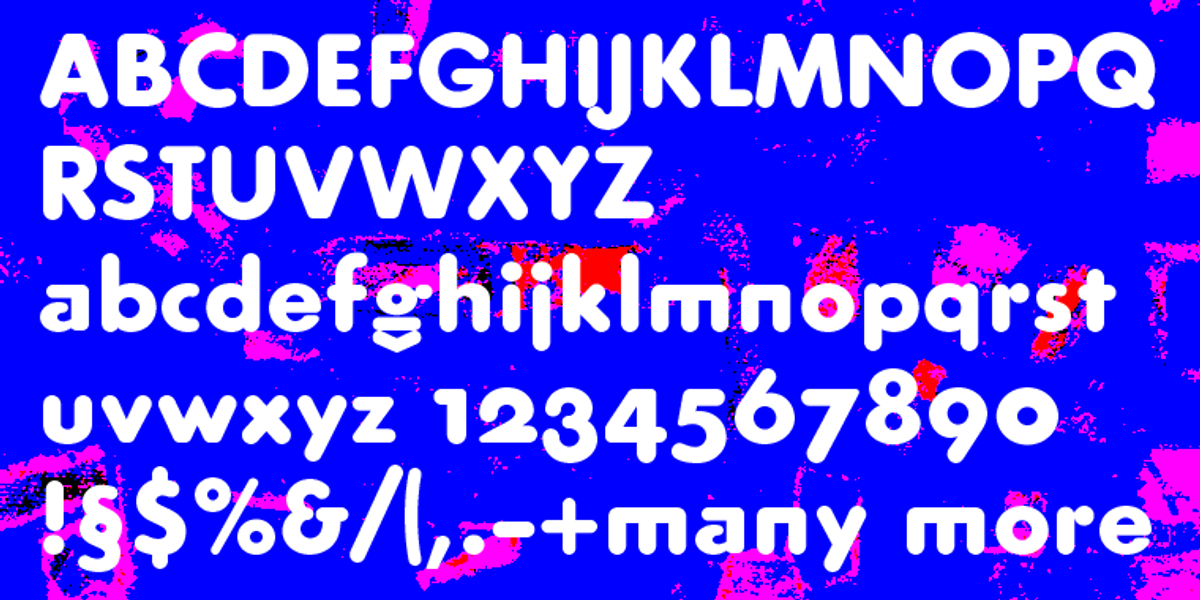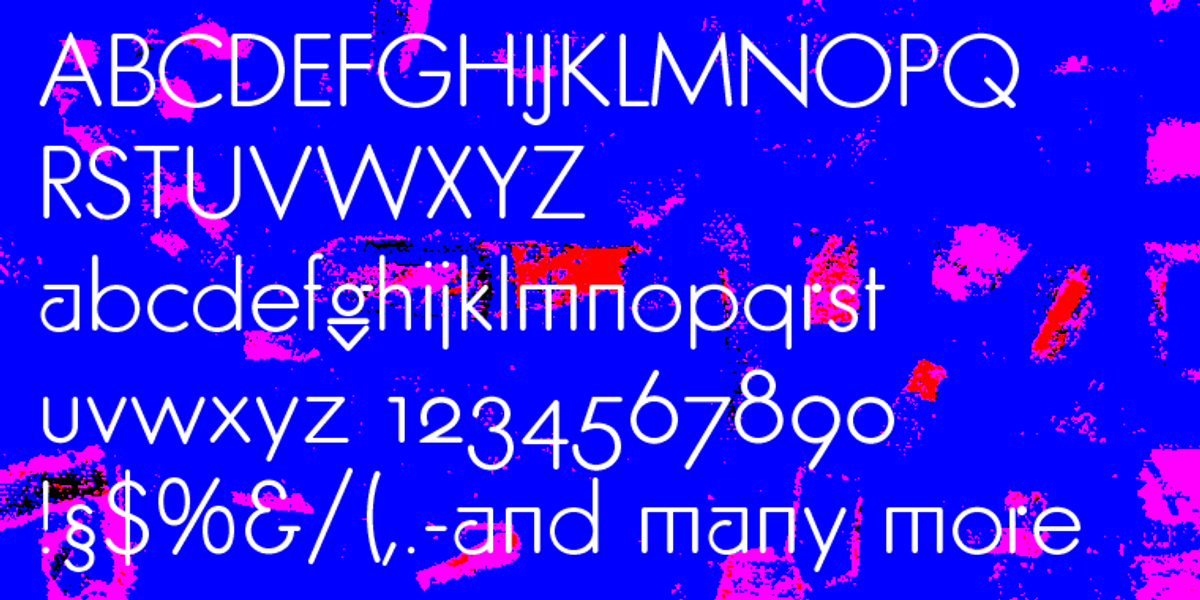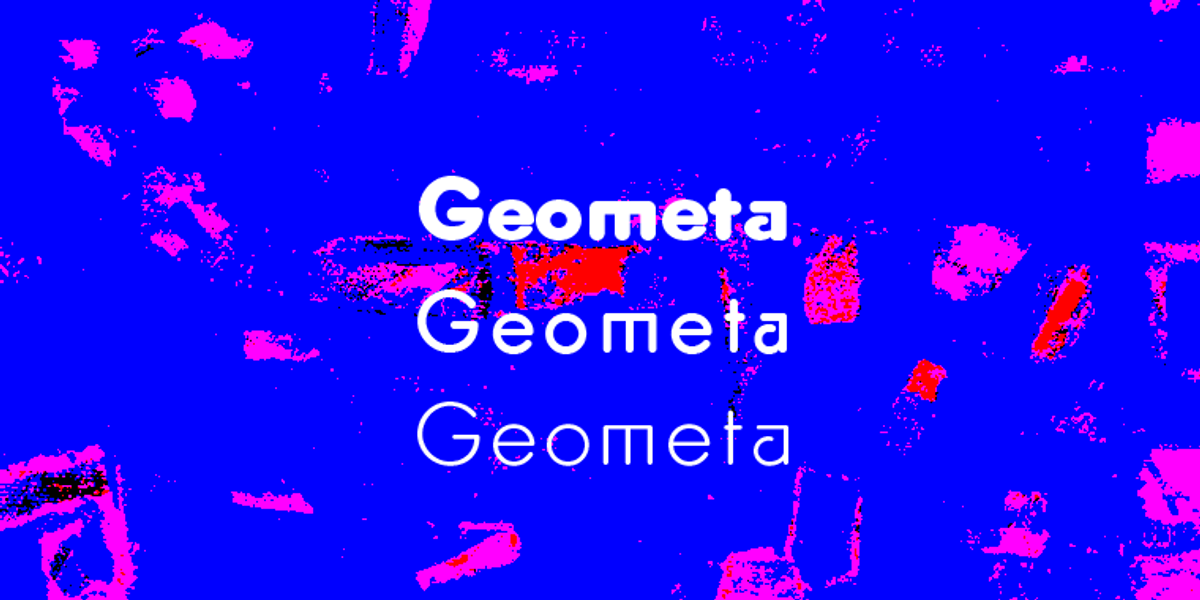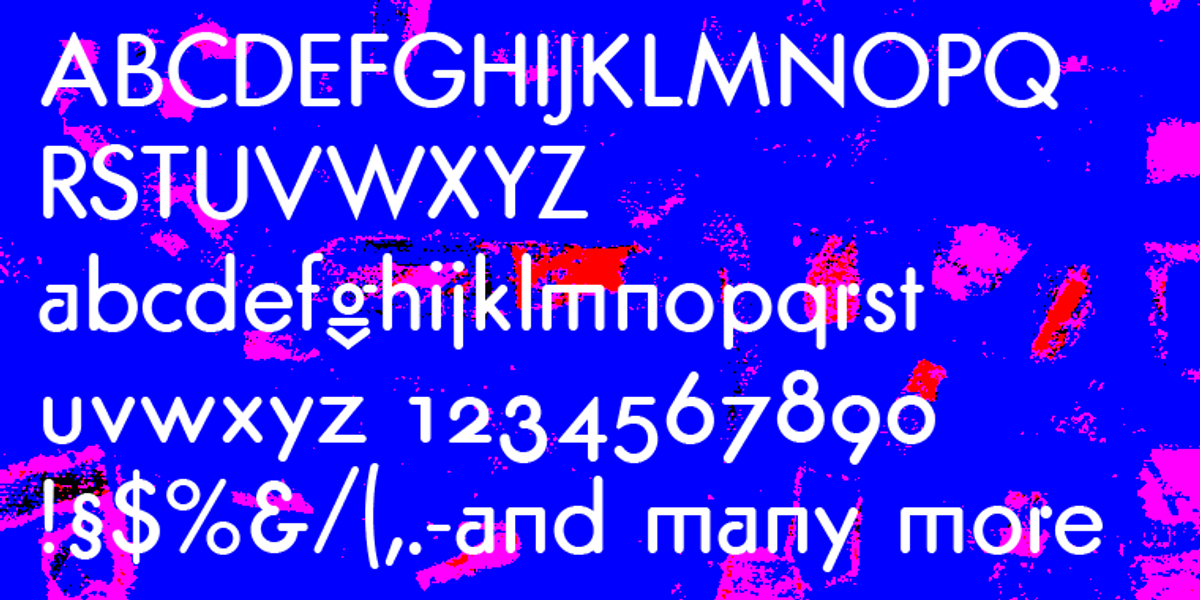
Geometa Rounded
Geometa is a rounded sans serif typeface designed by Gert Wiescher. It draws inspiration from Paul Renner's Futura Classic, but with a softer and more playful aesthetic. The rounded forms give the font a friendly and approachable feel, making it suitable for uses such as paragraph text, branding, and children's books.